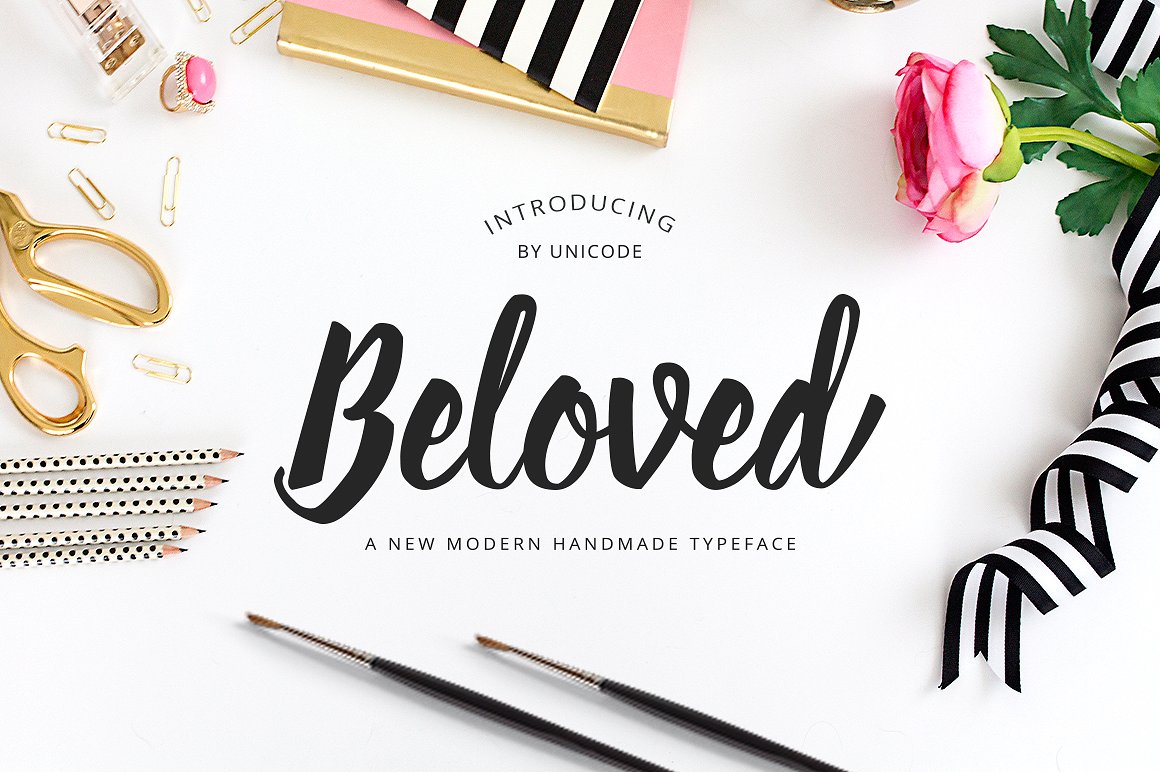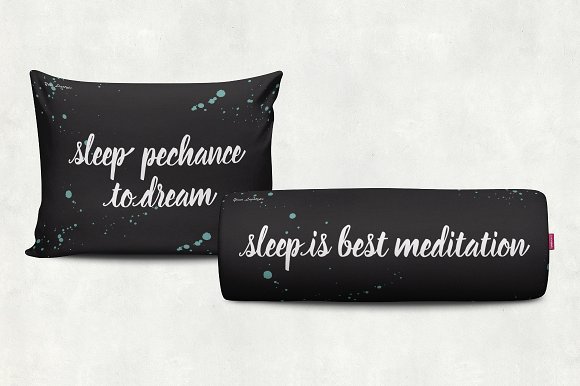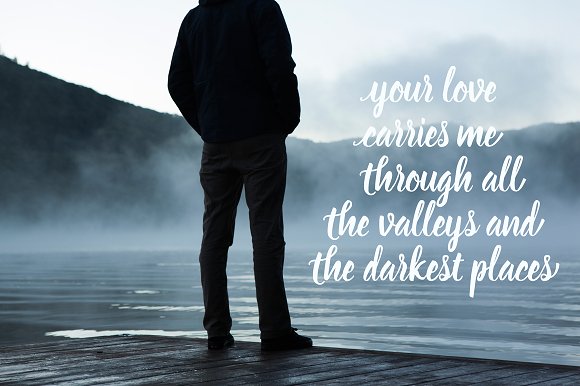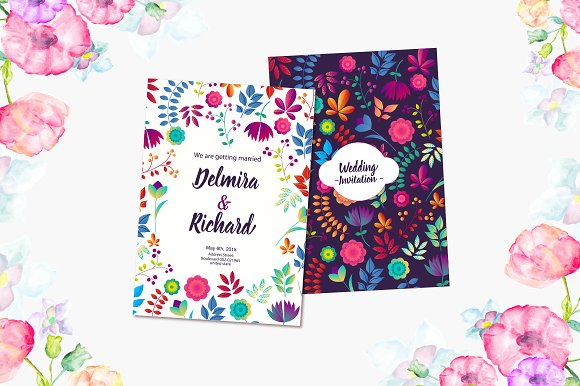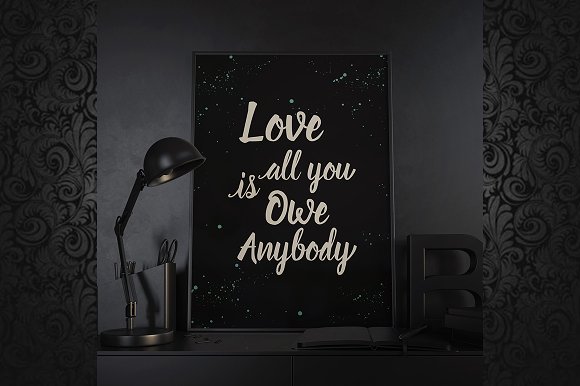
Beloved Font
About Beloved Font
Beloved is a fluid, strong handwritten type created by the Unicode design studio.
It’s suitable for many different types of projects.